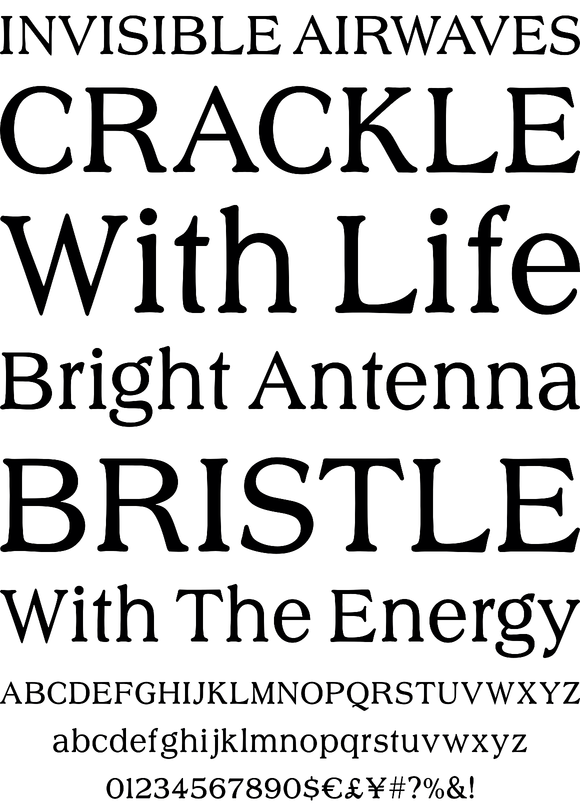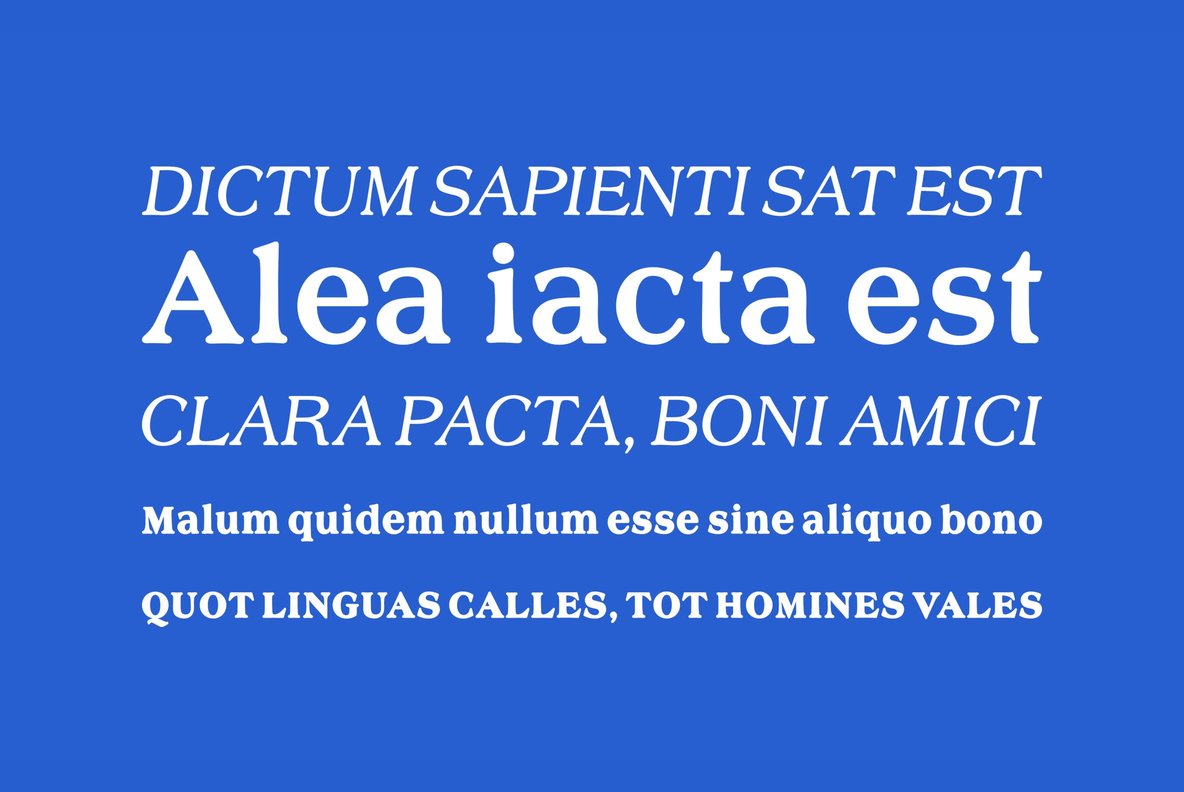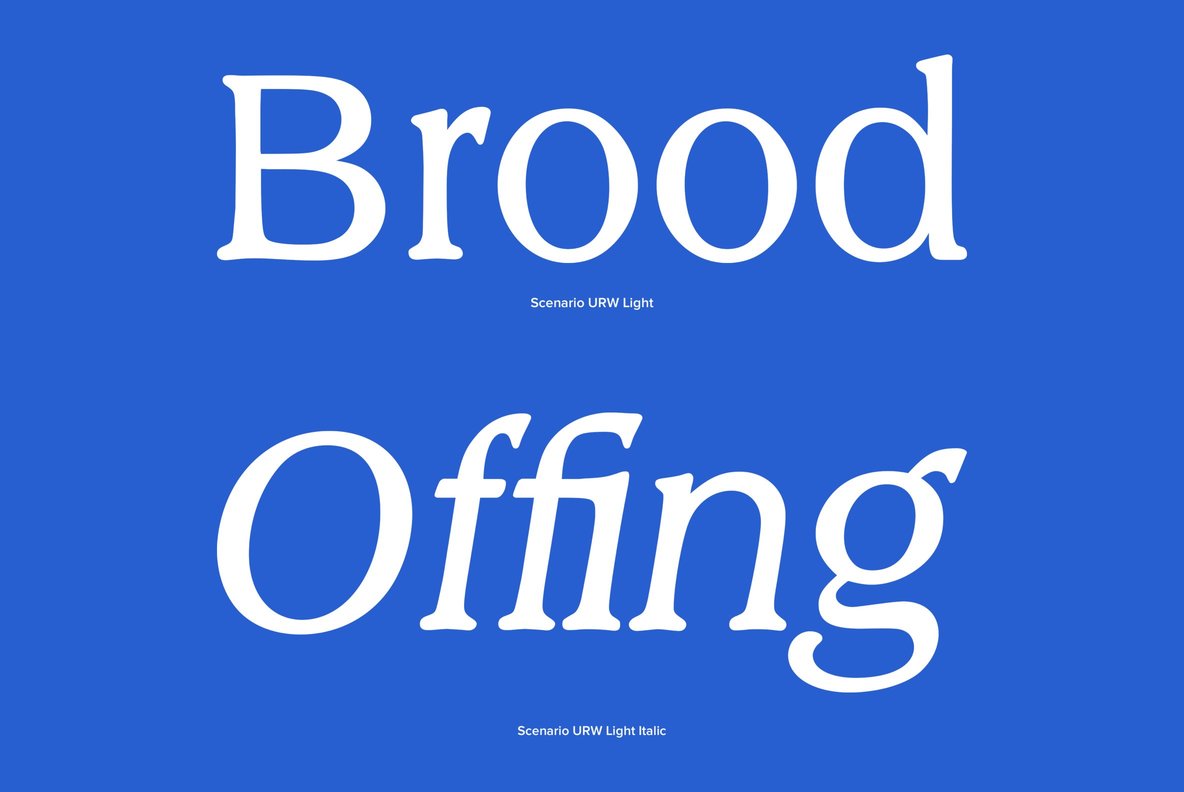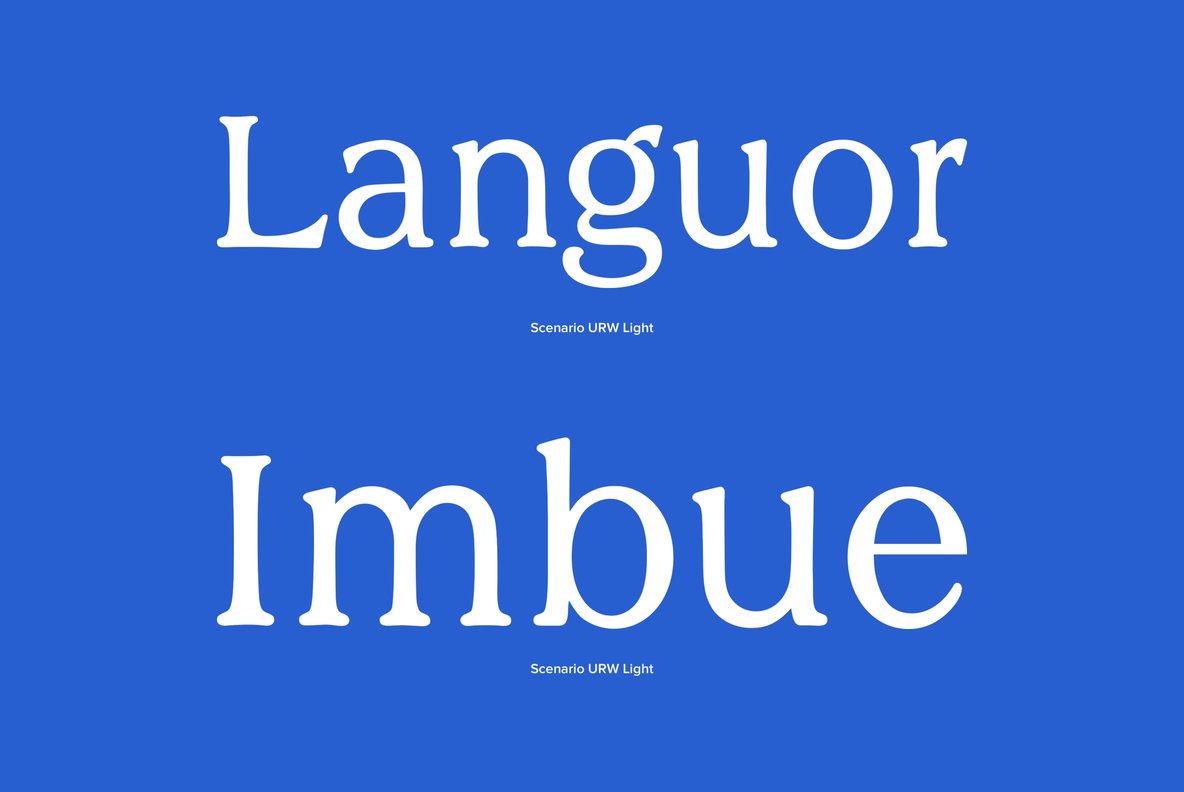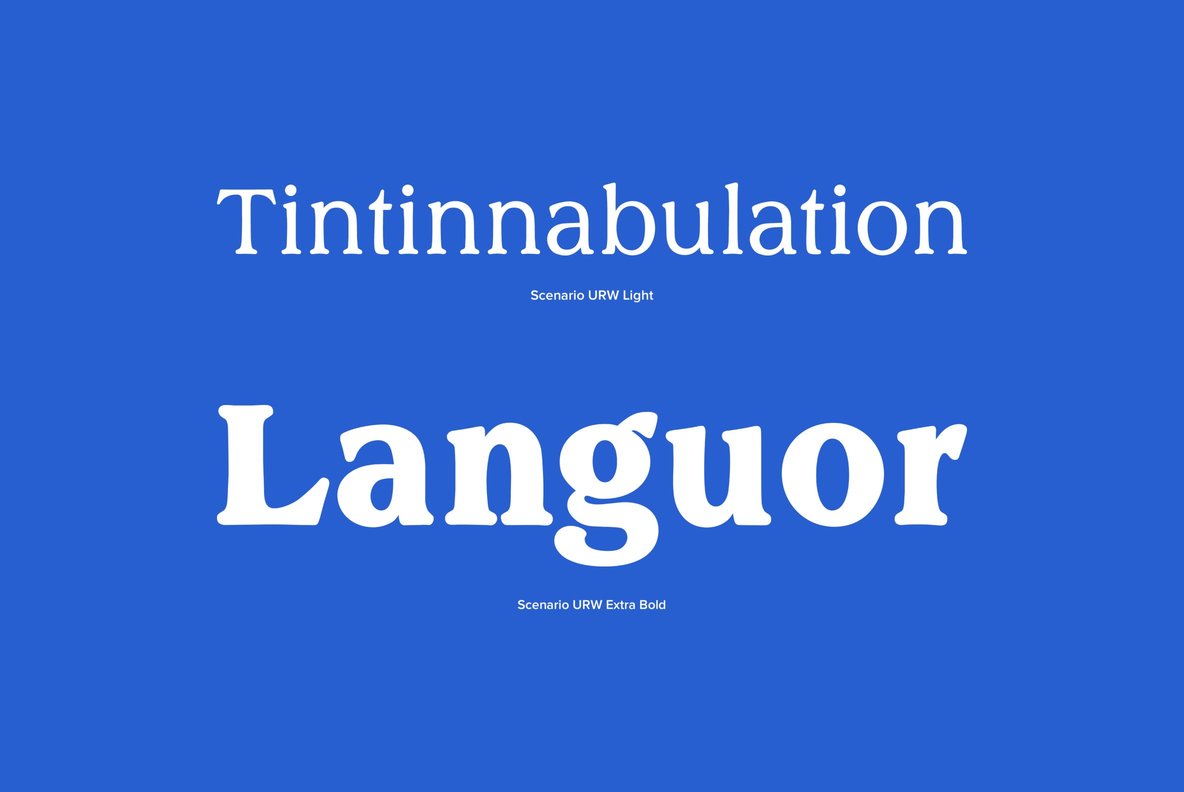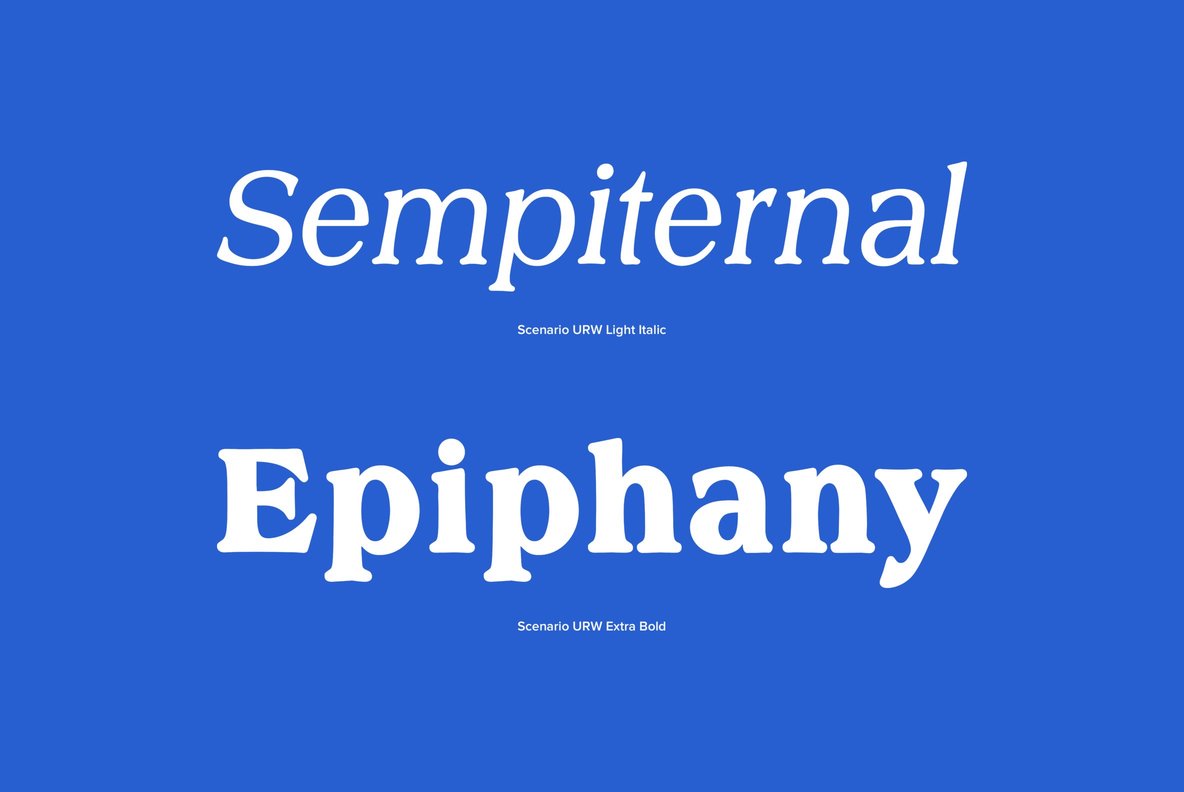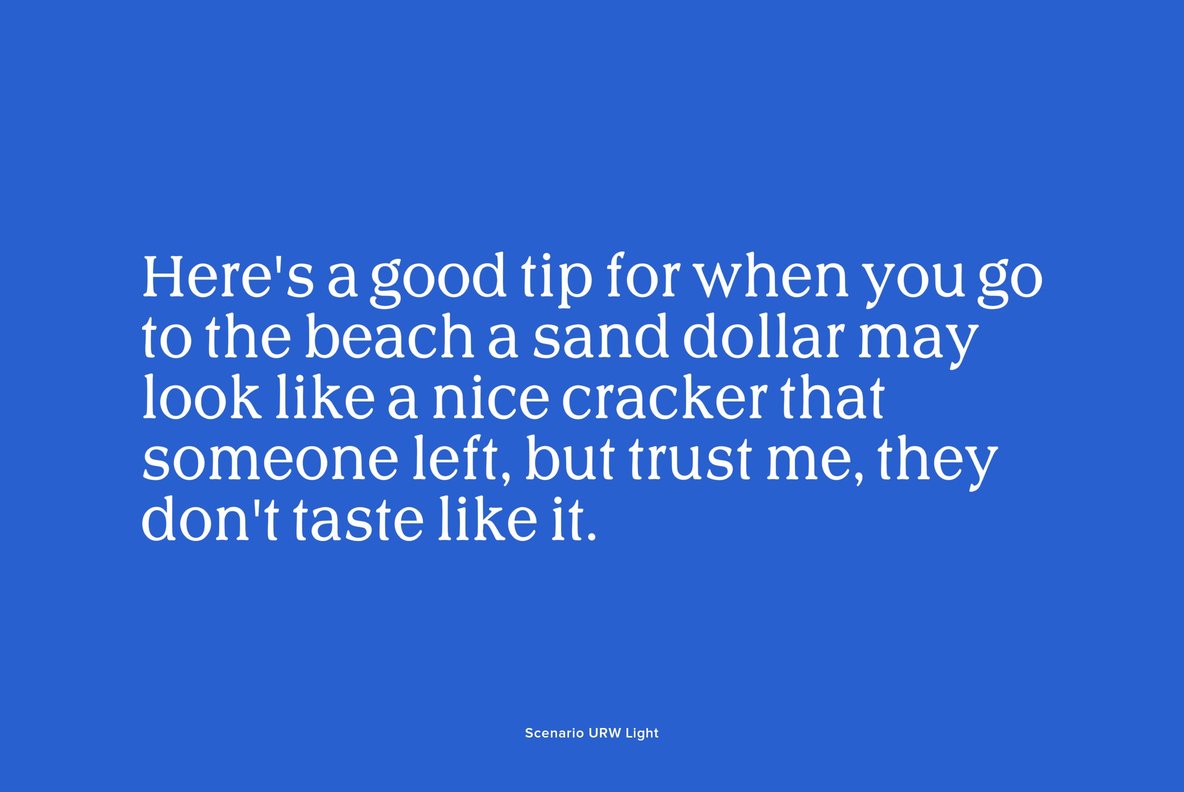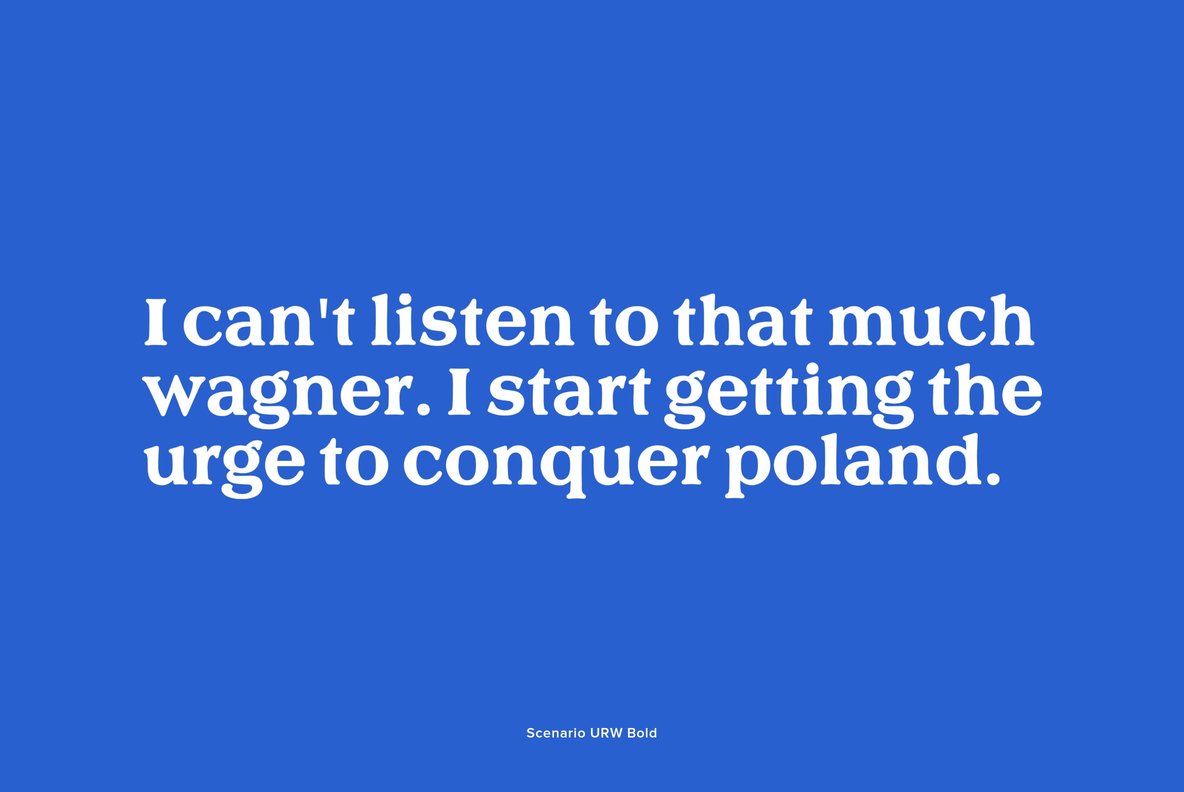
Scenario
Designed by Phil Martin in 1974, Scenario is a slab-serif that contains a fresh and sporty feel. The Scenario font family contains a total of five weights.